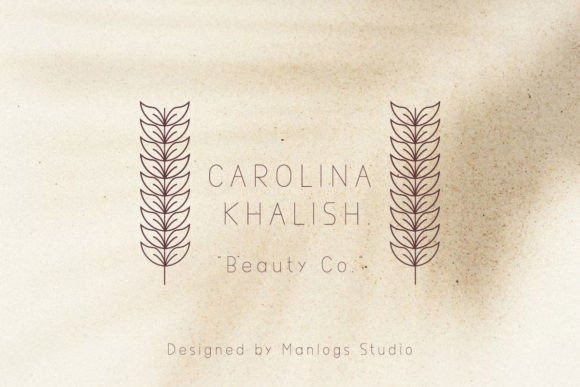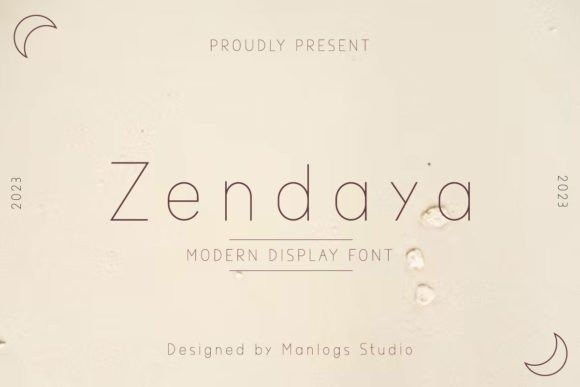
Zendaya Font
Zendaya Font is a modern-looking sans-serif font with a minimalist shape. Its clean and contemporary design is a great choice for any project that requires a professional touch. It comes with multilingual support, so you can use this font to reach a global audience. Whether you’re working on a website, branding materials, or a marketing campaign, this font is sure to make its way into your design toolset.